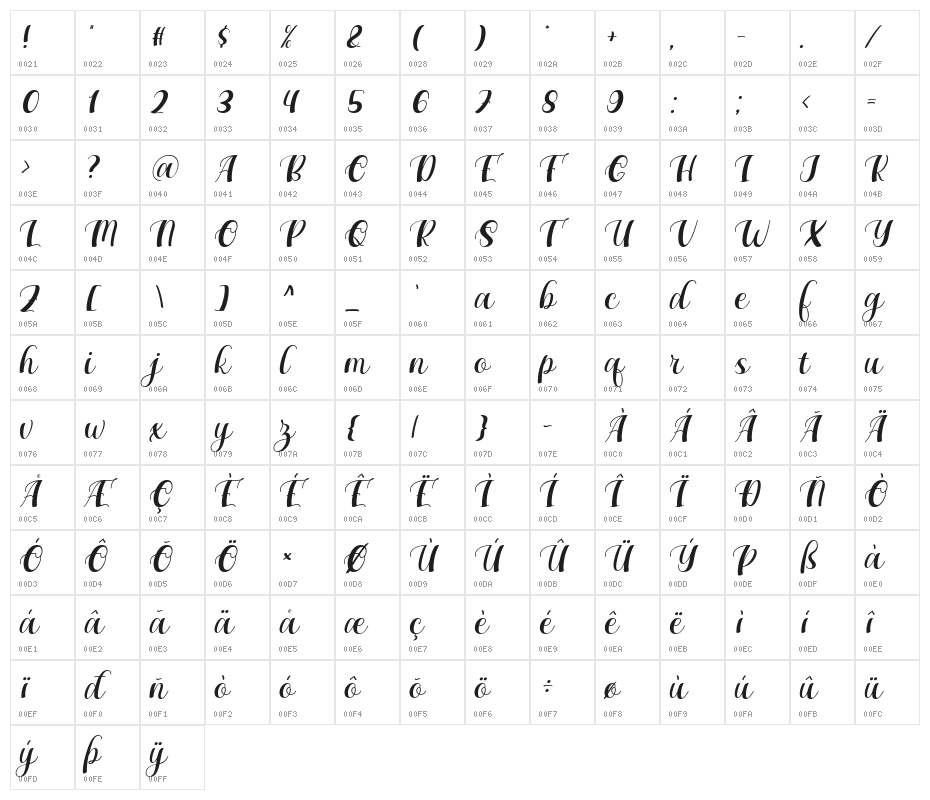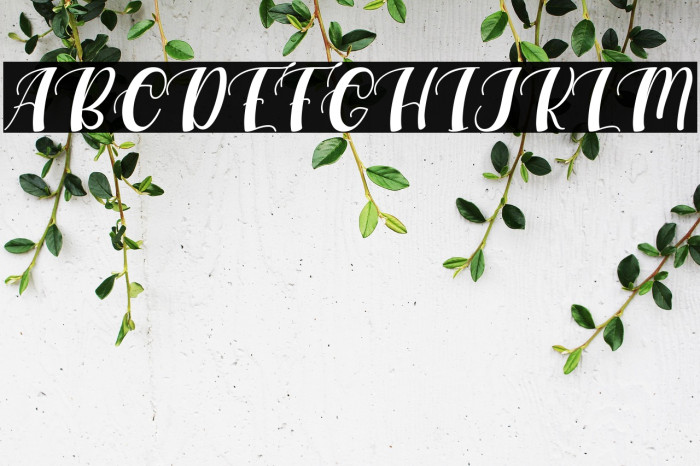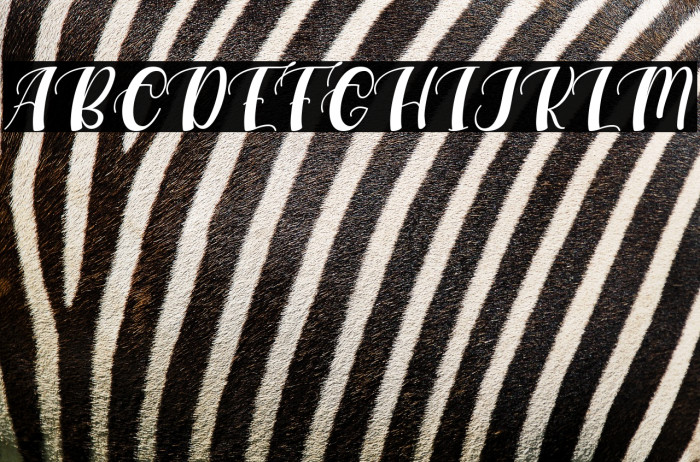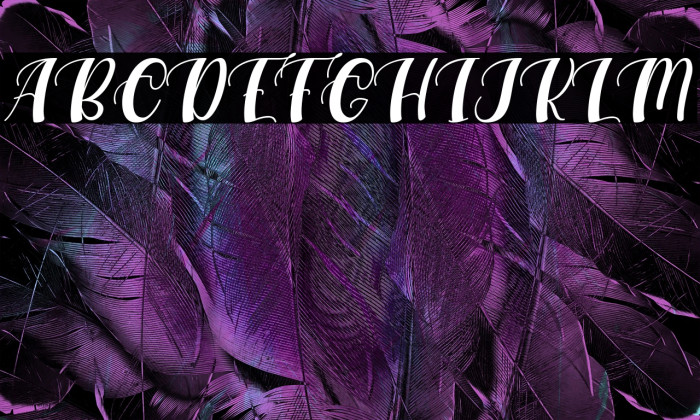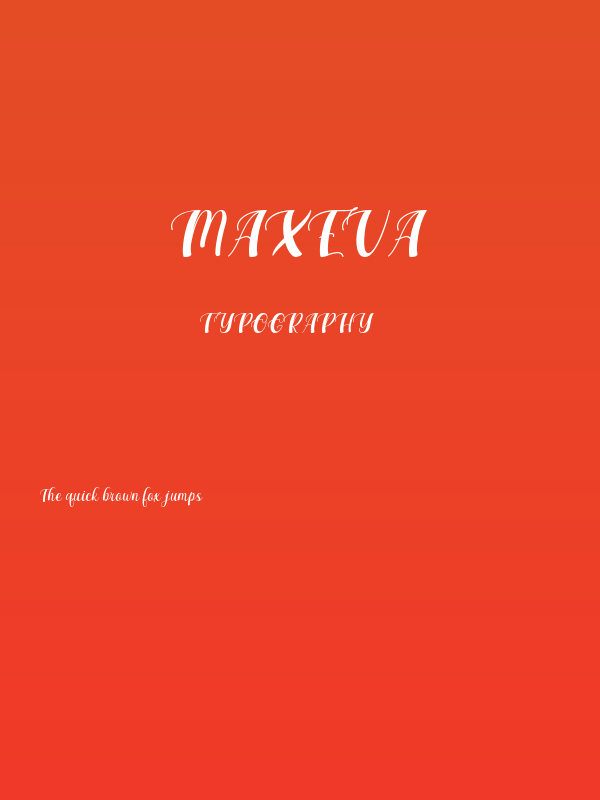
Maxeva Font
Maxeva Description
This font exhibits a sophisticated and elegant script style, characterized by its flowing, cursive letterforms. The uppercase letters are ornate with sweeping curves and flourishes, while the lowercase letters maintain a consistent fluidity, enhancing readability. The numerals are stylishly integrated into the script, maintaining the overall aesthetic. Special characters are designed with the same attention to detail, ensuring they complement the alphabetic characters seamlessly. The font's design is both decorative and functional, making it suitable for a variety of creative applications.
| Overall Style | Elegant, Decorative |
| Use Case | Logos, Invitations, Decorative Text |
| Proposed Projects | Ideal for wedding invitations, branding, logo design, and elegant stationery. |